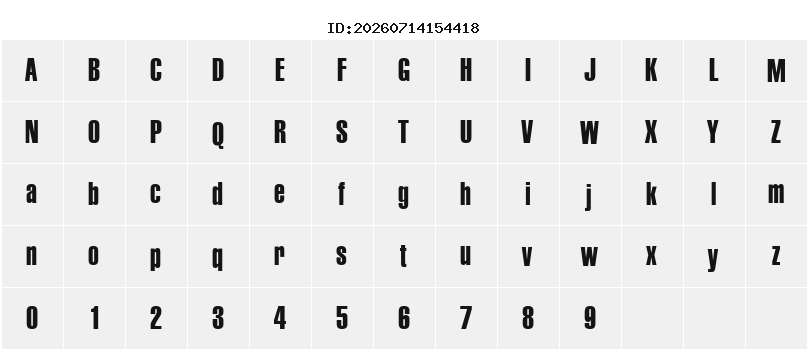
Jackson Preview
• Font Name: Jackson
• Full Font Name: Jackson Regular
About Jackson.ttf
Jackson.ttf is a modern, elegant sans-serif font designed for ultimate readability and visual harmony. Perfect for branding, headlines, web design, and print materials.